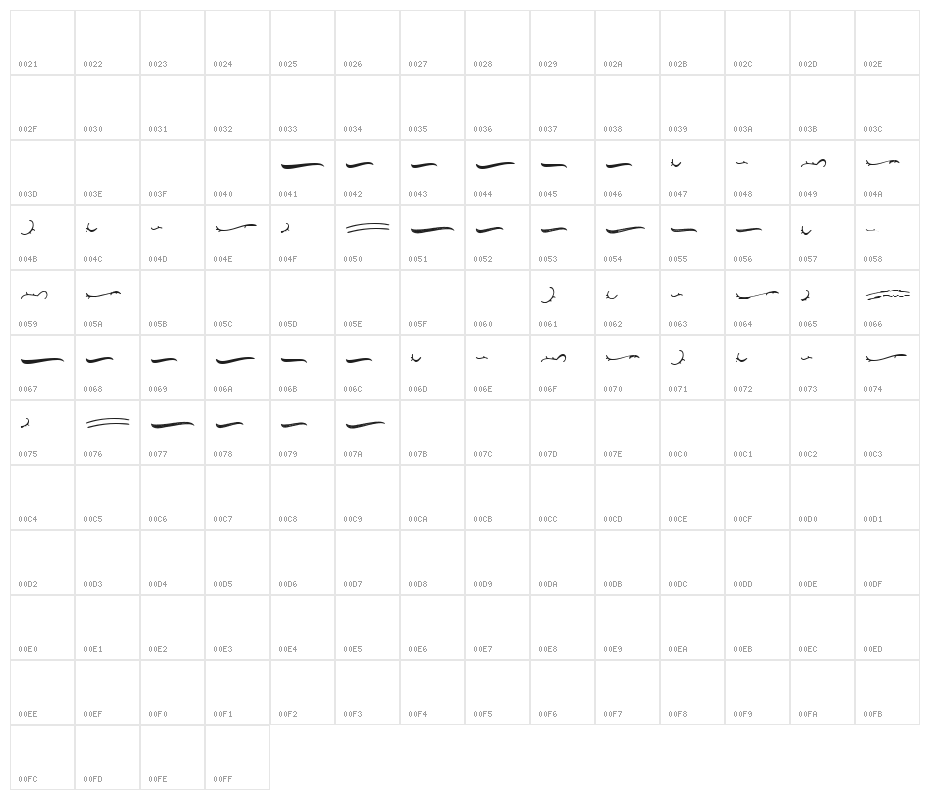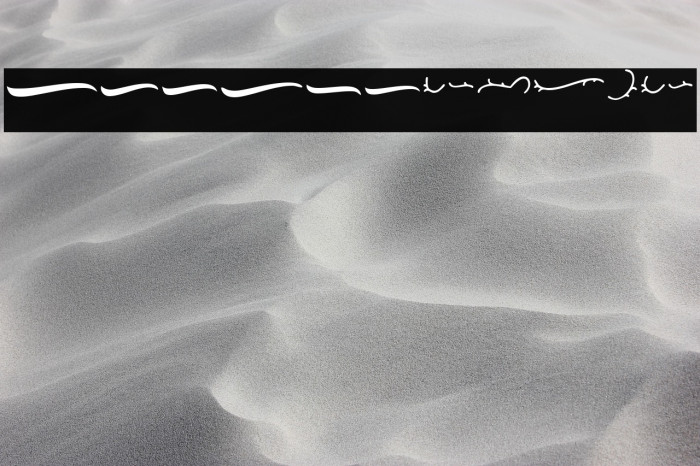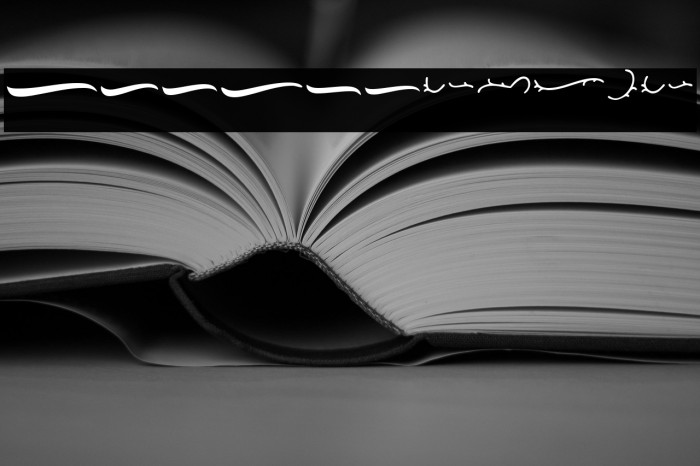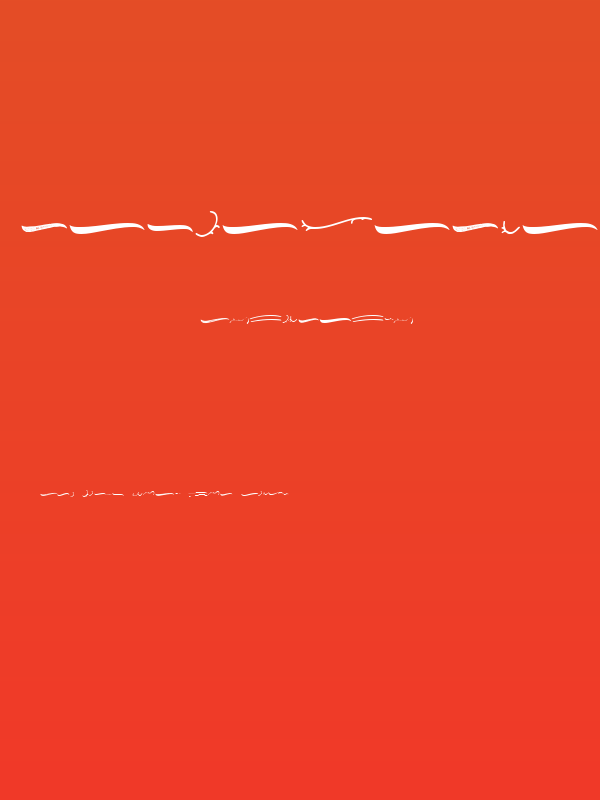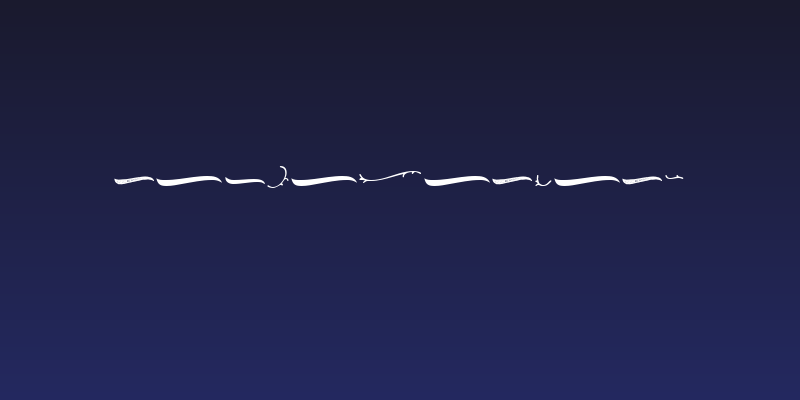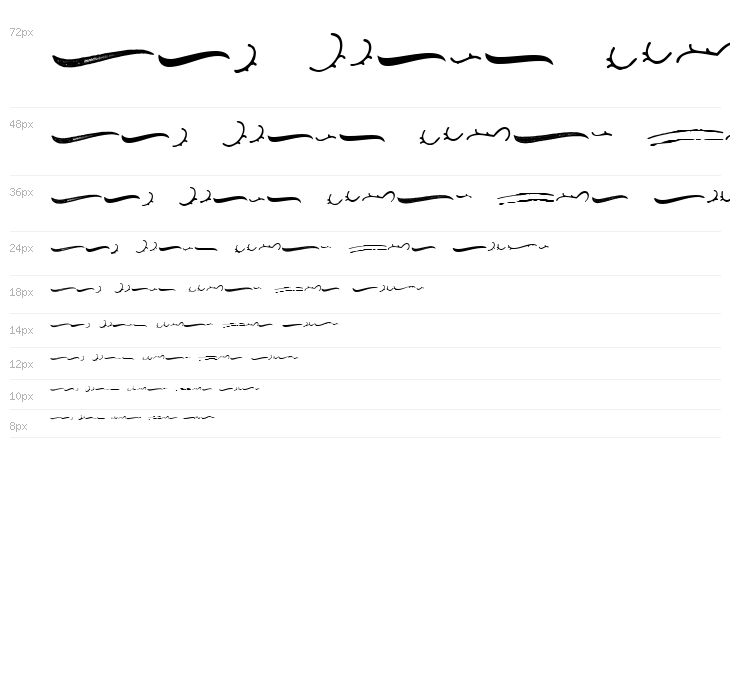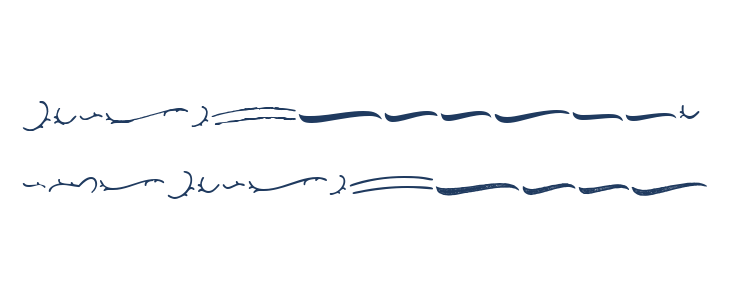
Saekanaswash Font
Saekanaswash Description
This design features an elegant and flowing script style, characterized by its sweeping curves and intricate swashes. Each character is crafted with a sense of fluidity and grace, making it ideal for decorative purposes. The strokes vary in thickness, adding a dynamic and artistic flair to the overall appearance. The design exudes a sense of sophistication and creativity, perfect for projects that require a touch of elegance and style.